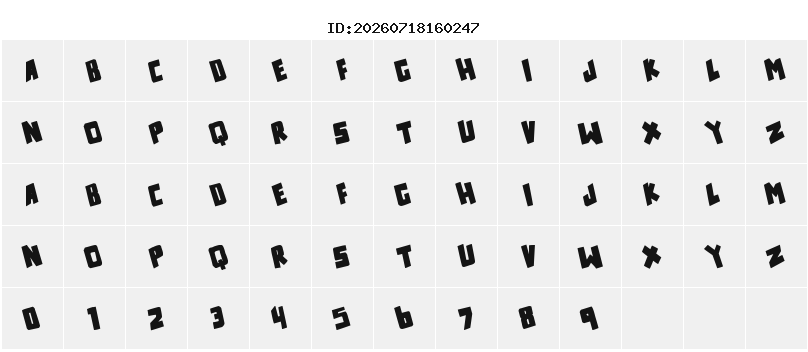
counter hit! Preview
• Font Name: counter hit!
• Font Style: Gras
• Full Font Name: counter hit! Bold
• Designer: Andeh Pinkard
About counter hit!.ttf
counter hit!.ttf is a modern, elegant sans-serif font designed for ultimate readability and visual harmony. Perfect for branding, headlines, web design, and print materials.